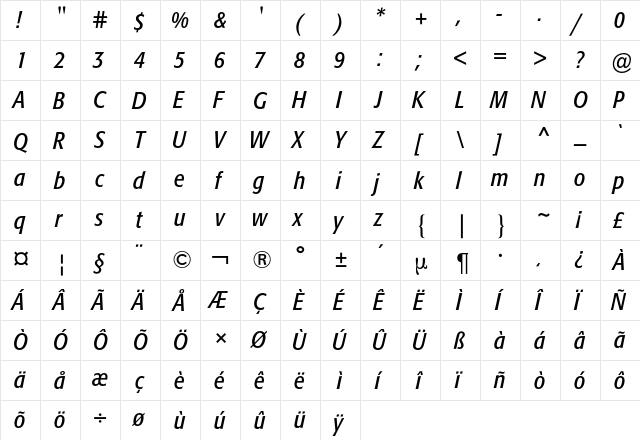
Formata Condensed BQ Regular Font Preview
Formata Condensed BQ Regular
Design Context for Formata Condensed BQ Typeface
Formata Condensed BQ is a composed and adaptable typeface that performs quietly and consistently across a wide range of design contexts. Its narrow stance lets it pack a punch even in space-constrained designs.